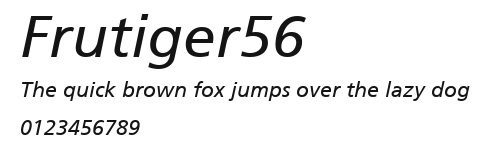
Frutiger56 Preview
• Font Name: Frutiger56
• Font Style: RomanItalic
• Font ID: DTP-Frutiger56-Italic
• Full Font Name: Frutiger56-Italic
• PostScript Name: Frutiger56-Italic
About Frutiger56.ttf
Frutiger56.ttf is a modern, elegant sans-serif font designed for ultimate readability and visual harmony. Perfect for branding, headlines, web design, and print materials.